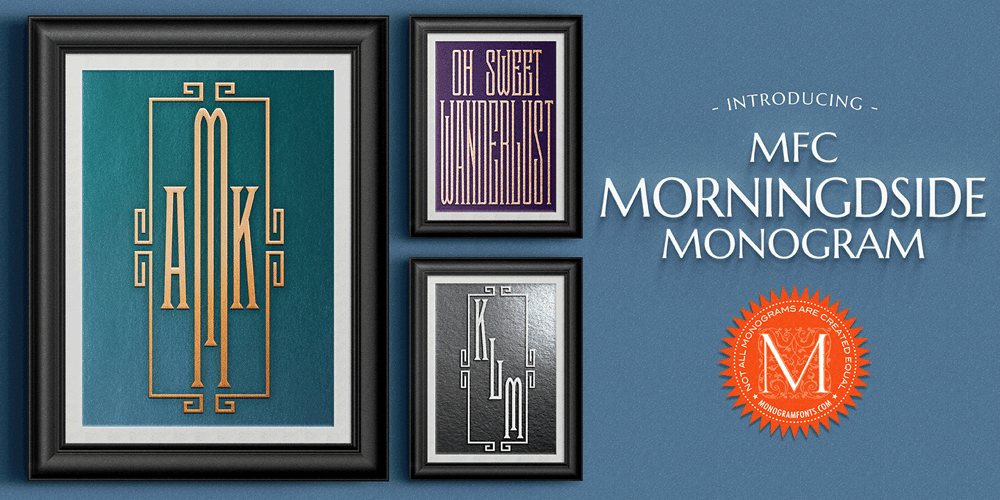
MFC Morningside Monogram Font Family was designed by Brian J. Bonislawsky and published by Monogram Fonts Co.. MFC Morningside Monogram contains 9 styles and family package options. The inspiration source for Morningside Monogram is the 1934 Book of American Types by American Type Founders. One of their most popular monogram styles in that specimen book was called “Fifth Avenue Monogram Initials”, which was only available in metal type at an array of sizes up to 54 points. This classic, super condensed, monogram initial style also came complete with mortised initial frames, both of which are now digitally recreated and revived for modern use. Morningside Monogram is capable of traditional one, two, and three letter format monograms, as well as a diagonal three smallcap letter format monogram. Download and view the Morningside Monogram Guidebook if you would like to learn a little more. There is a guidebook for both the Pro and Standard fonts included in the font package. Morningside Monogram comes complete with both Pro and Standard format fonts. For those with programs that can take advantage of OpenType features, the Pro fonts are for you, but for others without the ability to use OpenType features, we’ve created separate fonts that make up the traditional but not diagonal style contained in the Pro font.